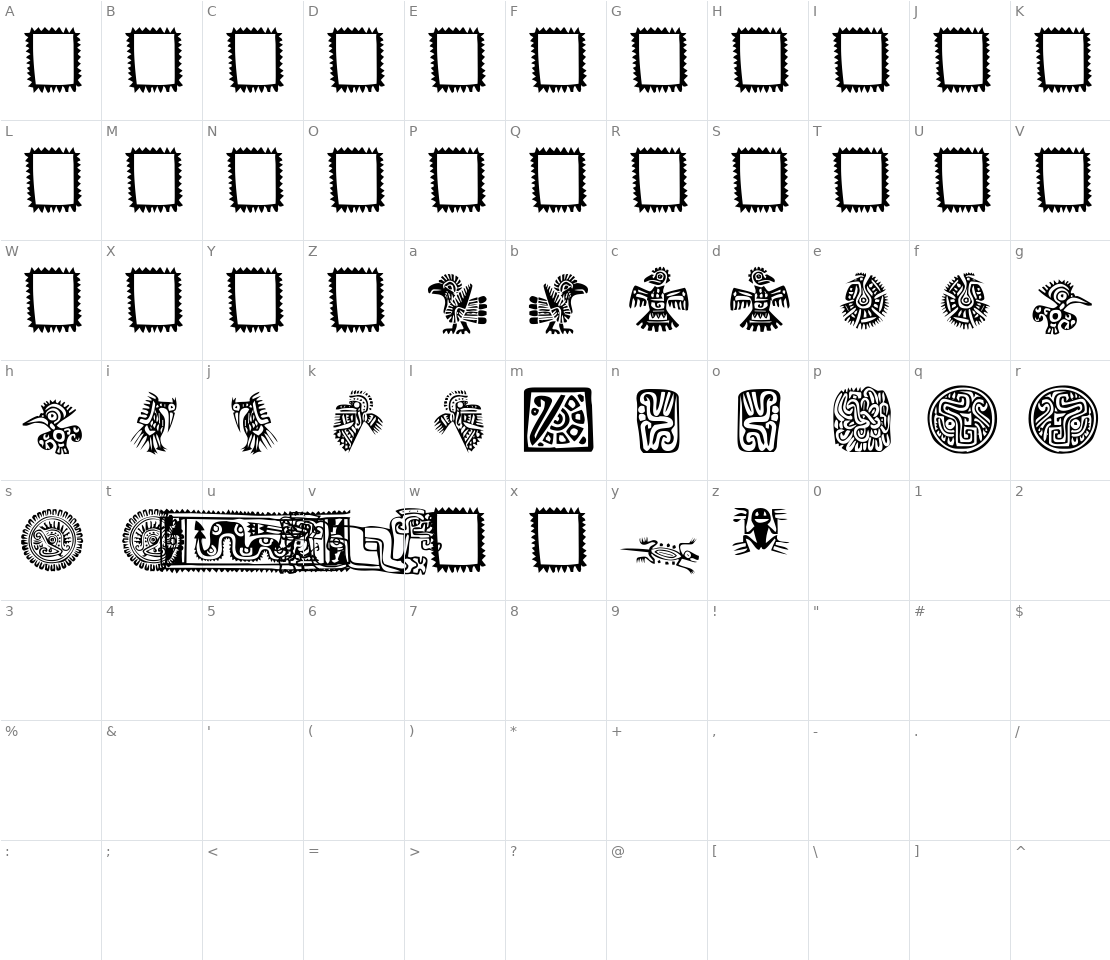
Mexican Ornaments
Mexican Ornaments is a dingbats font from Listemageren featuring a collection of symbols and decorative motifs inspired by Aztec and Mesoamerican art. The glyphs include tribal patterns, ancient iconography, and ornamental elements rooted in pre-Columbian visual culture. Useful as borders, dividers, and accent pieces in projects with a cultural or historical theme, or anywhere you need detailed ethnic patterning without sourcing individual illustrations.